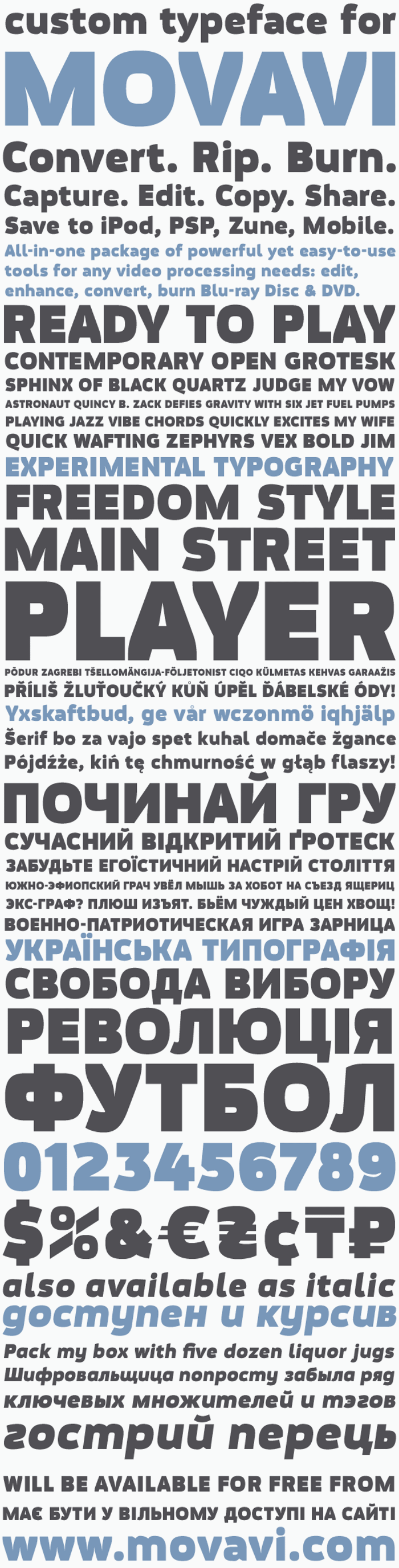
Movavi Grotesque Black Font
Custom typeface for Movavi software company, that produces high quality software for video engineering. Fonts make the character. Fonts create mood. Check out the exclusive Black font from Movavi that will adorn both groovy art works and enterprise-class projects. Stress it! Let you show your artistic spirit with Italics font. It’s perfect for emphasis and quotations.